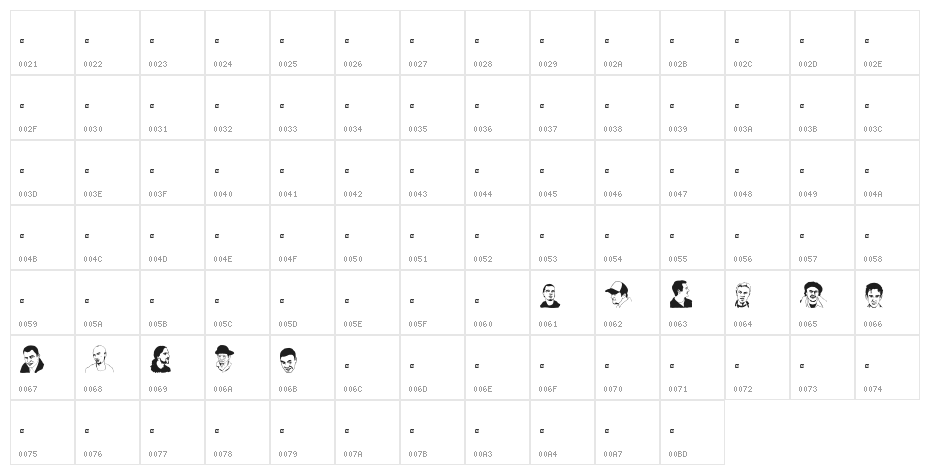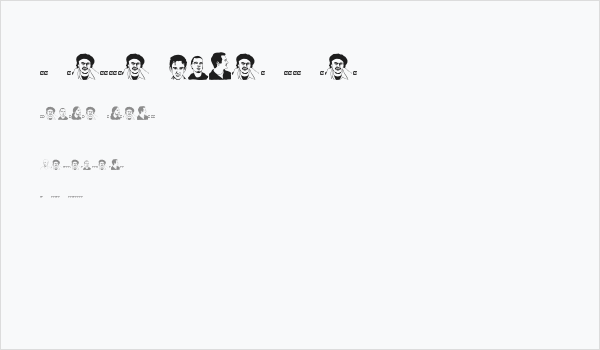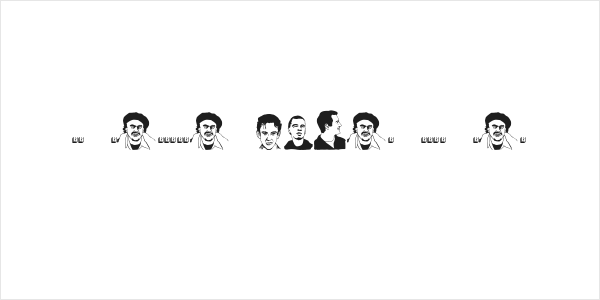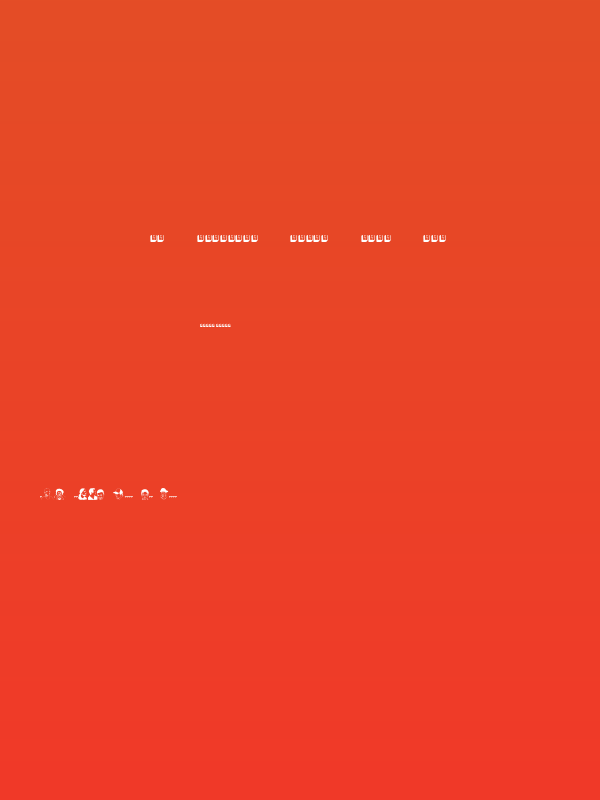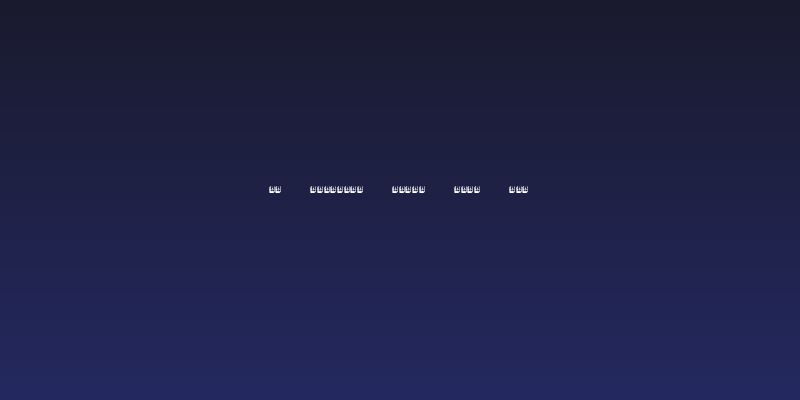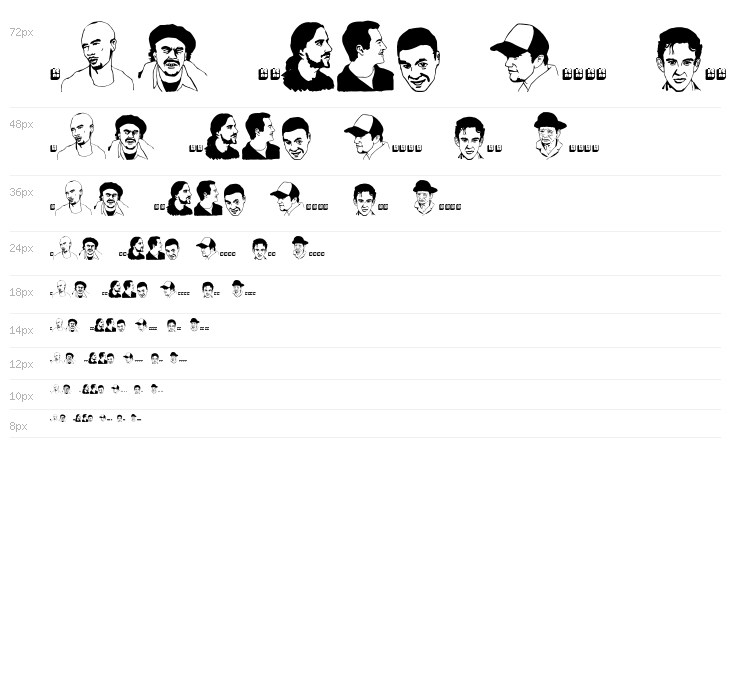
FT Fenotype faces DEMO men Font
FT Fenotype faces DEMO men Description
This is not a traditional font but rather a collection of illustrated faces representing different men. Each character is replaced by a unique face illustration, capturing distinct expressions and styles. The illustrations are detailed, with clear lines and shading that give each face a unique personality. This set is more of an artistic representation than a functional typeface, focusing on visual storytelling through diverse character depictions.
| Overall Style | Artistic, Illustrative |
| Use Case | Artistic projects, Illustrations |
| Proposed Projects | Ideal for creative projects like comic books, graphic novels, or artistic posters where character representation is key. |